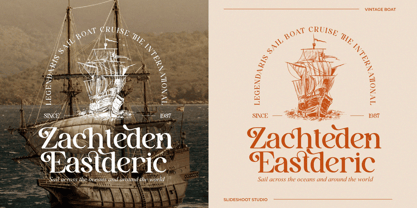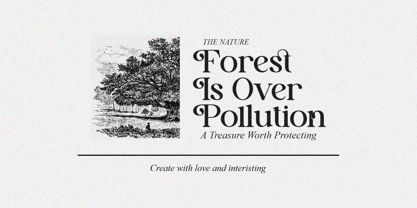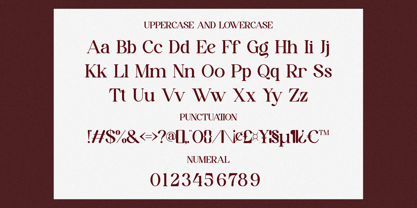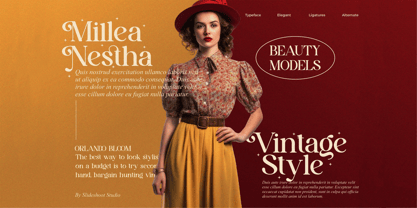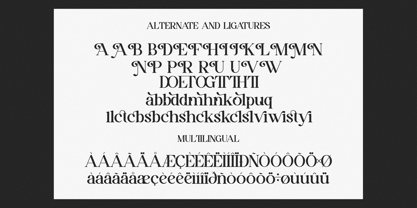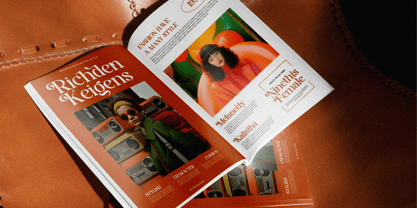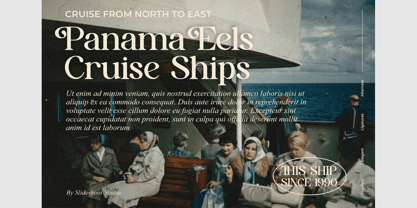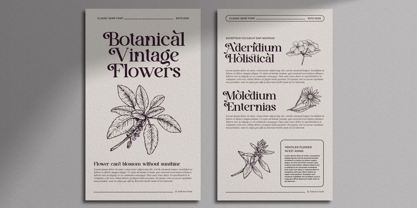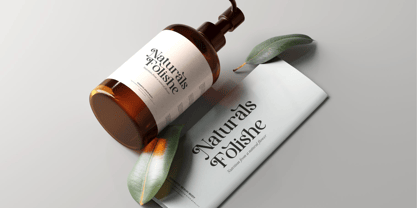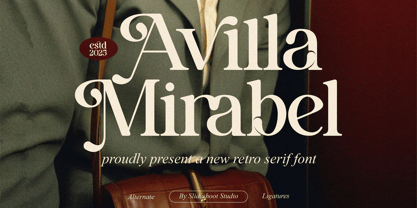
Avilla Mirabel
by Slide Shoot
The Avilla Mirabel Font Family was designed by Ahmad Riqi and published by Slide Shoot. Avilla Mirabel contains 1 styles. More about this family
Avilla Mirabel Serif is a vintage font type for all branding and logo designs. This vintage Serif font has a beautiful character. This font is suitable for invitation card designs, cool logos, movie titles, movie names, business cards, book titles, brand names, and various other designs. Avilla Mirabel Serif is a smooth serif font that exudes sophistication and the moment. Its stylish alterations and ligatures make this font a perfect partner for any project.
Designers: Ahmad Riqi
Foundry: Slide Shoot